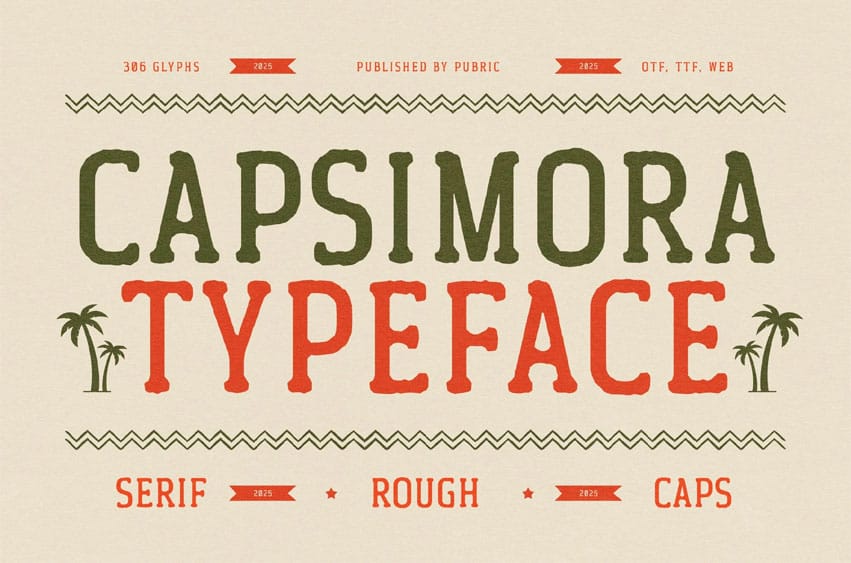
Capsimora Font is a serif font with a gritty, textured finish that evokes a bold vintage aesthetic. Its distinctive lettering adds strong personality, making it ideal for posters, branding, and visual projects that demand attention.
Ideal for headlines, logos, editorials, packaging, quotes, films, games, album covers, books, and promotional materials. This font ensures your design stands out in any setting.